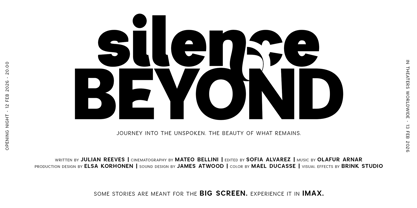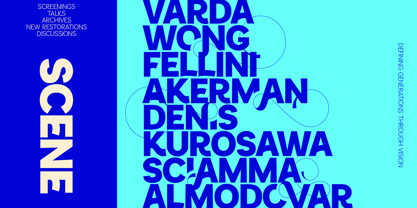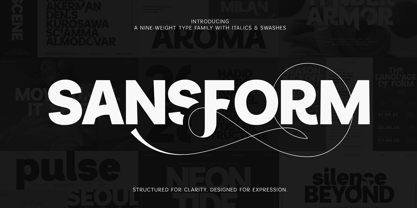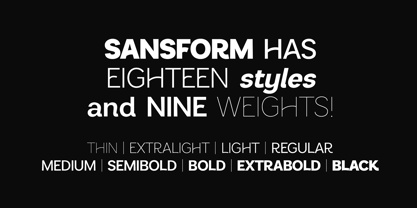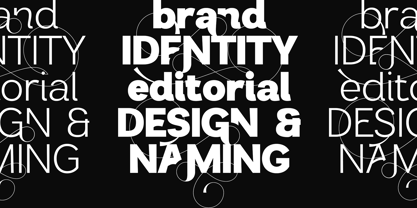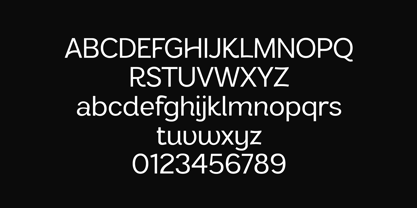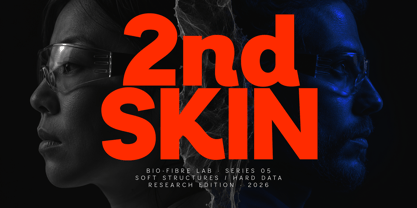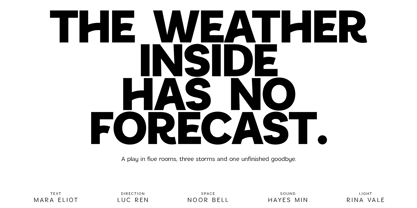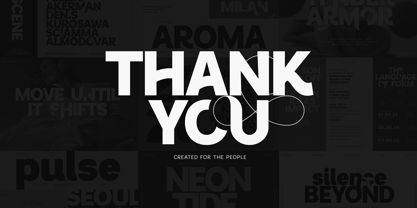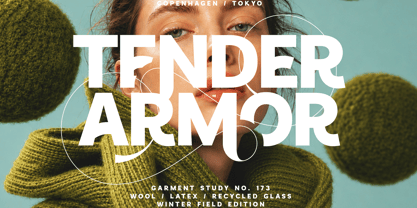
Sansform
by VP Creative Shop
The Sansform Font Family was designed by Vladimir Fedotov, Plamen Petrov and published by VP Creative Shop. Sansform contains 18 styles and family package options. More about this family
Sansform is a contemporary sans serif family built for designers who want clarity without sacrificing personality. Its clean geometric structure is enriched with expressive letterforms, elegant swashes and an extensive collection of alternate glyphs - making it equally powerful for minimal branding and bold editorial typography.
The family includes nine carefully balanced weights, from delicate Thin to commanding Black, each paired with a matching italic. This gives you 18 versatile styles that work seamlessly across headlines, body copy, logos and complete visual identity systems.
Designers: Vladimir Fedotov, Plamen Petrov
Foundry: VP Creative Shop